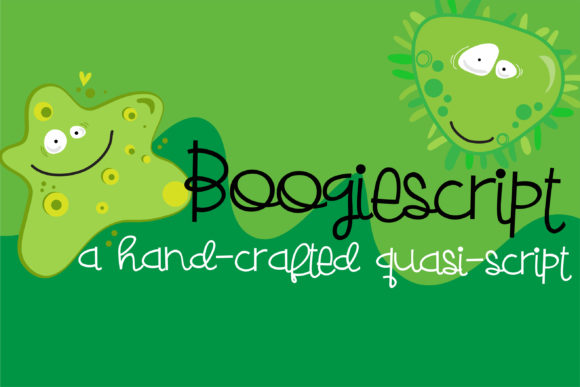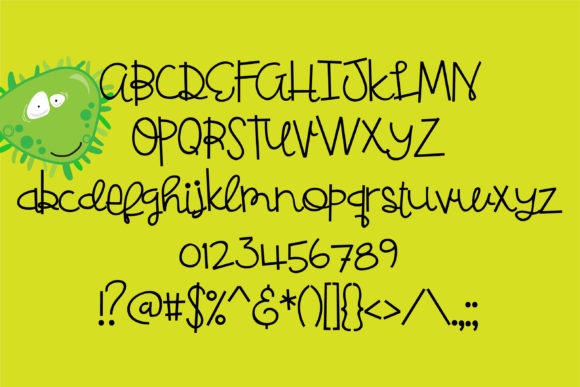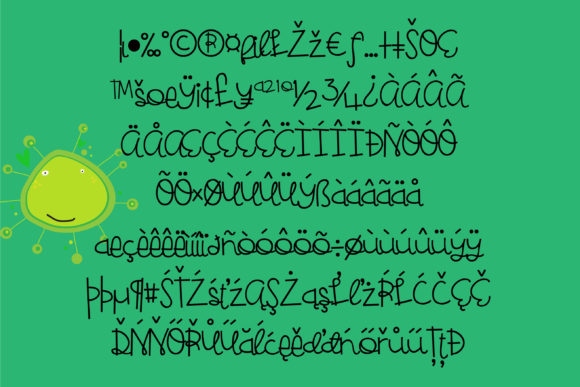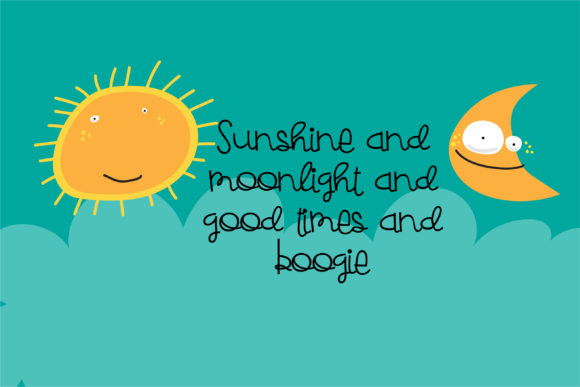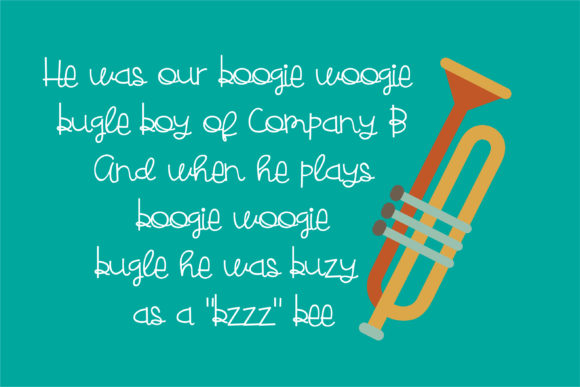
Boogiescript Font
About Boogiescript Font
This casual hand-crafted quasi-script, has stiffly, upright lettering and a whimsical feel to it. It coordinates well with her sister font: ZP Boogieman.